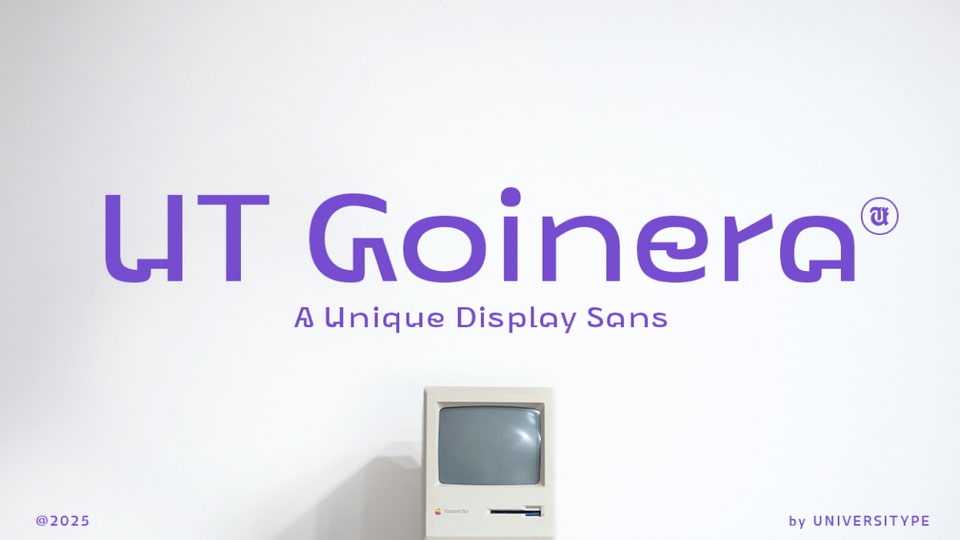
Download UT Goinera font, a modern geometric typeface that finds its roots in the everyday, a coffee cup lid, to be exact. But don’t let the simplicity of the inspiration fool you.
Designer: Universitype Foundry